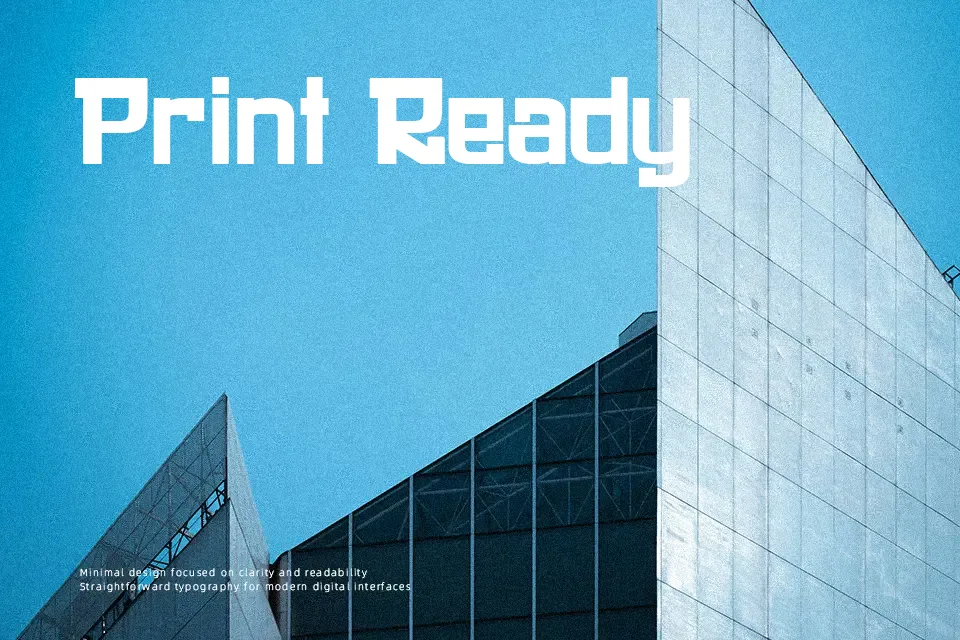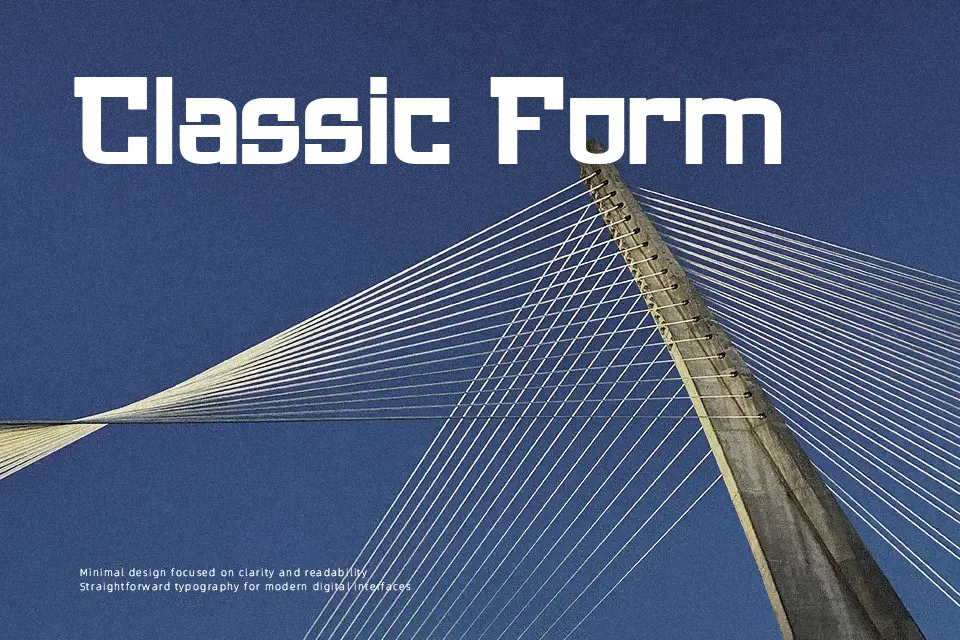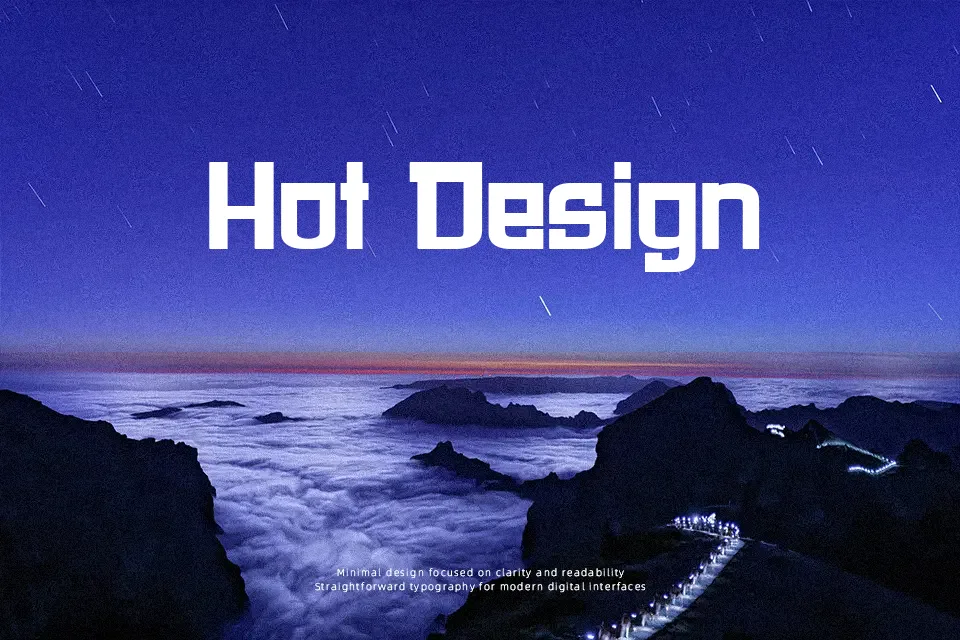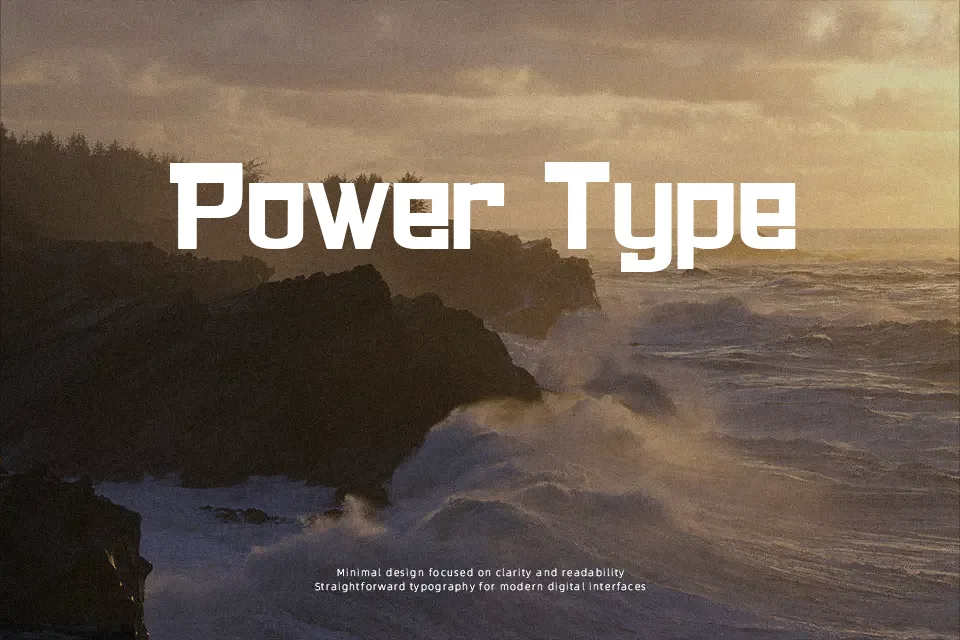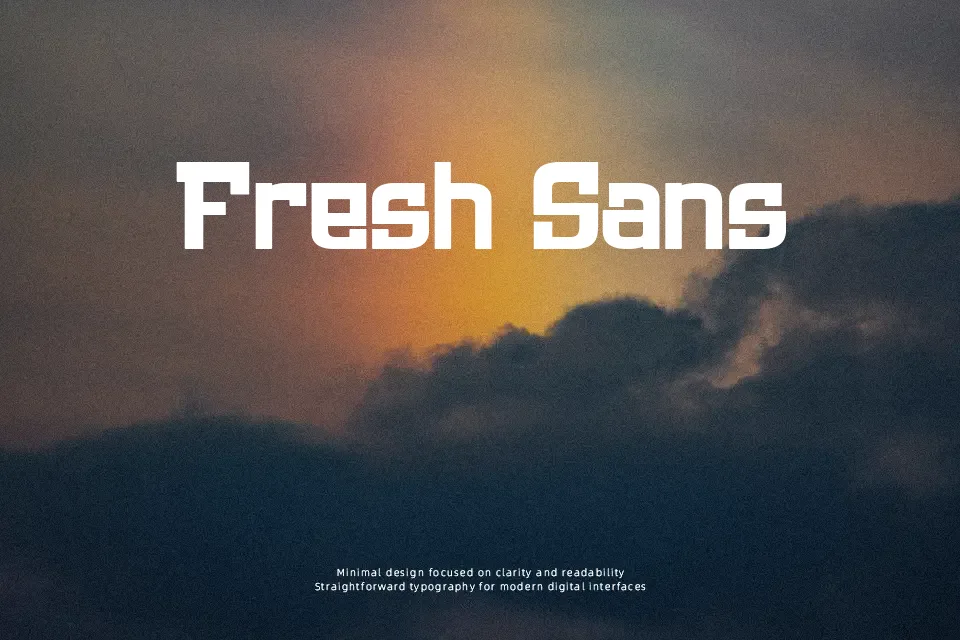
Ultra Style 1312 Font
Ultra Style 1312 Font features rigid geometric construction defined by thick, unyielding strokes and tightly contained rectangular letterforms. Each glyph shares consistent modular proportions with minimal stroke contrast, giving uppercase characters a robust, mechanical presence across display settings. The character spacing is relatively compact, which keeps words visually cohesive at substantial sizes while reducing clutter. In practice, the typeface performs exceptionally well on sports banners, poster headings, and apparel branding where commanding visual weight is essential. However, the dense anatomy and enclosed counters reduce legibility in continuous reading environments. Small captions and running text quickly blur together, making the design far less suitable for body copy or detailed editorial paragraphs.
Best For: sports event posters, streetwear apparel graphics, athletic team merchandise
Not Ideal For: long paragraph text, small interface labels, dense editorial layouts
Perfect for branding, fashion, and headline, with a bold and decorative style.